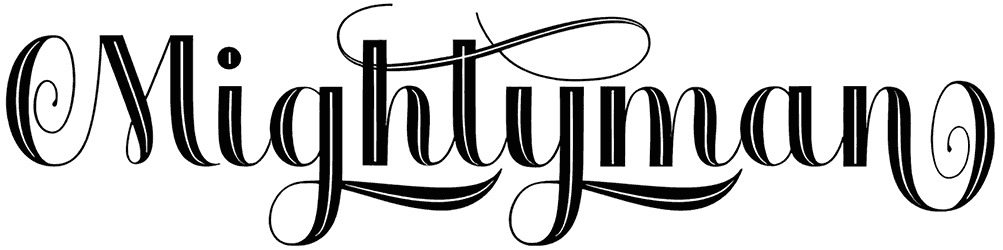
Mightyman Font
Would you like to show off your project with an adorable and elegant face? This handwritten font, named Mightyman, can be what you demand. For any modern or classic designs, such as postcards, movies, invitations, or the like, Mightyman can be a nice letterform. This queen font with almost full characters will throw a delightful vibe into your design.